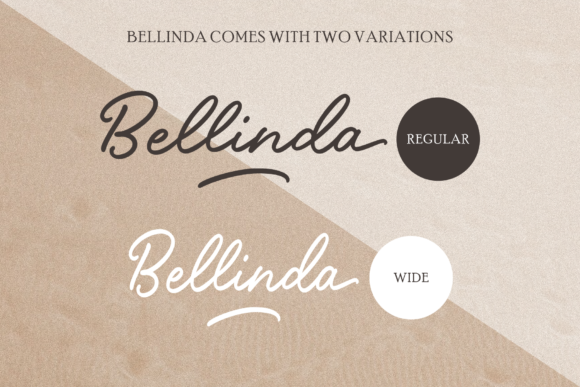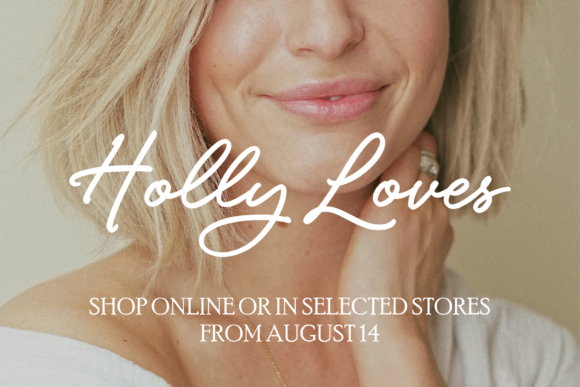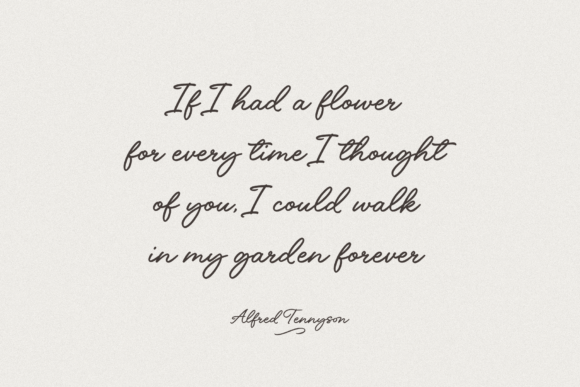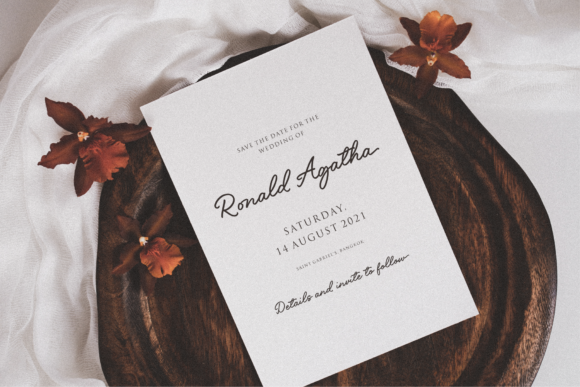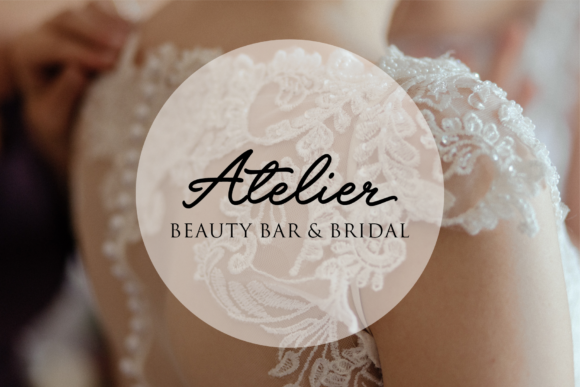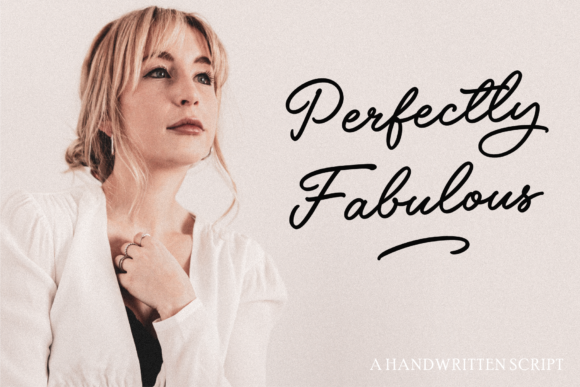
Bellinda – Modern Calligraphy Fonts Font – Free Download
Introduction to Bellinda – Modern Calligraphy Fonts Font
Bellinda is a vintage-styled and delicate script font.
Key Features of Bellinda – Modern Calligraphy Fonts Font